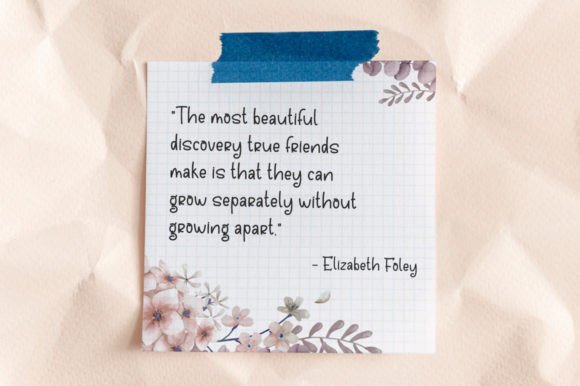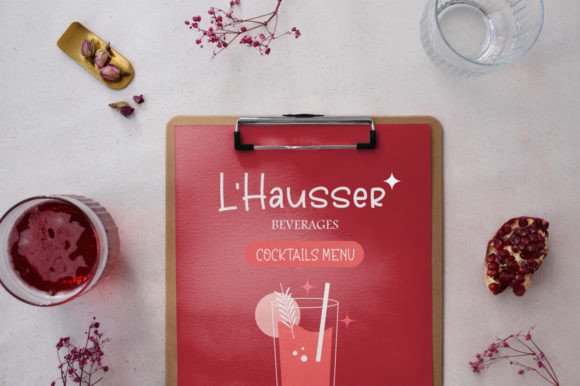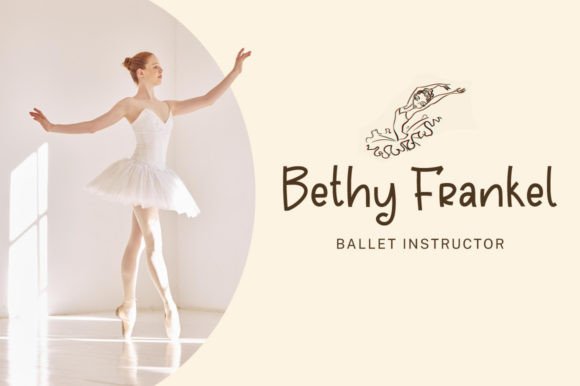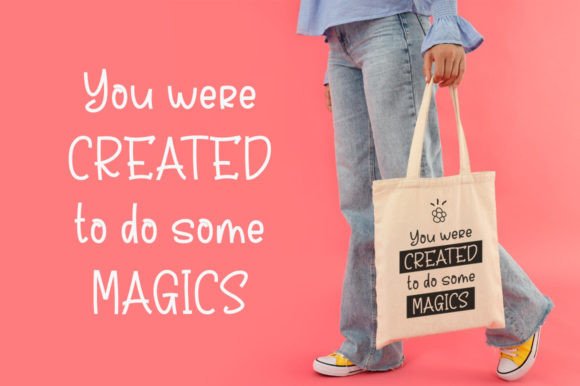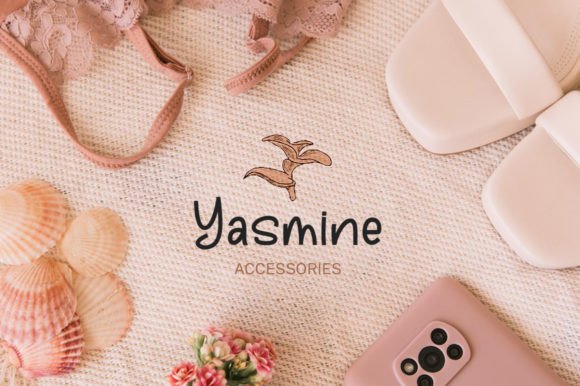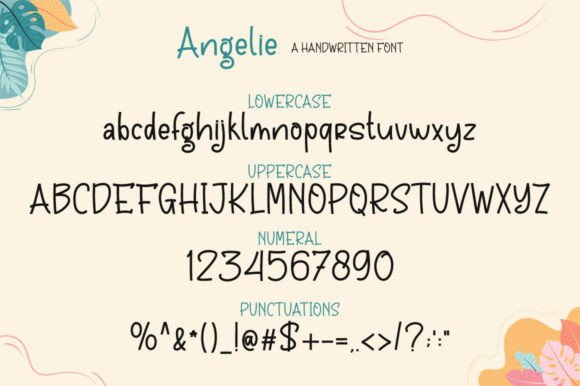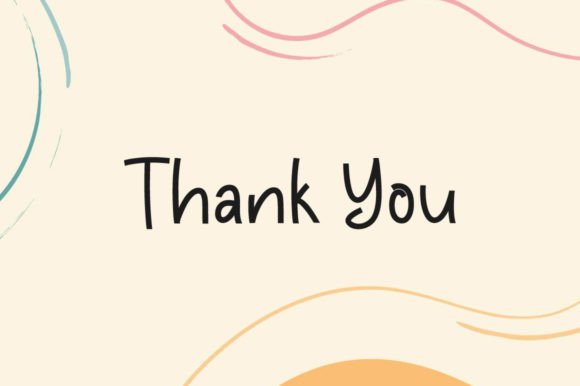
Angelie Font
About Angelie Font
**Add a Fun and Smart Touch to Your Designs with “Angelie” Handwritten Font**
“Angelie” is a versatile handwritten font that strikes a balance between playfulness and sophistication. Here’s how you can use “Angelie” to bring a fun and smart touch to your various design projects:
1. **Invitations:** Create engaging and personalized event invitations with “Angelie.” Its friendly and approachable style is perfect for inviting guests to weddings, parties, and other special occasions.
2. **Thank You Cards:** Express gratitude in a stylish and heartfelt manner by using “Angelie” on thank you cards. Its handwritten charm adds a warm and personal touch to your messages of appreciation.
3. **Quotes:** Showcase inspirational and motivational quotes with “Angelie.” Its smart yet playful appearance enhances the impact of your quotes, making them more relatable and memorable.
4. **Greeting Cards:** Design custom greeting cards for birthdays, holidays, and special moments with “Angelie.” Your heartfelt messages will be beautifully complemented by the font’s friendly and inviting look.
5. **Logos:** Craft unique and eye-catching logos with “Angelie.” Whether it’s for a brand, blog, or small business, this font adds character and personality to your logo designs.
6. **Business Cards:** Make a memorable impression with business cards featuring “Angelie.” Its handwritten style can convey approachability and creativity, which can be especially useful for freelancers and creative professionals.
7. **Social Media Graphics:** Create engaging social media posts, banners, and stories using “Angelie.” Its playful yet smart appearance can help capture attention and encourage user interaction.
8. **Packaging Labels:** Design labels and packaging for handmade or artisanal products with “Angelie.” Its handwritten aesthetic adds authenticity and a personal touch to your branding.
9. **Bookmarks:** Craft charming bookmarks for bookstores, libraries, or literary events. “Angelie” enhances the reading experience by adding a touch of whimsy to these small treasures.
10. **Typography Pairing:** Pair “Angelie” with complementary fonts to create dynamic typography in your designs. Mix it with sans-serif or serif fonts for contrast and emphasis.
11. **Posters:** Design posters for events, promotions, or announcements using “Angelie.” Its friendly and smart look makes information easily accessible and visually appealing.
12. **Art Prints:** Create art prints featuring illustrations or graphic designs with “Angelie” for a fresh and contemporary look. It’s a great choice for adding titles or captions.
13. **Mugs and Merchandise:** Customize mugs, T-shirts, and other merchandise with “Angelie.” Its smart handwritten style adds a personalized touch to your products.
14. **DIY Crafts:** Use “Angelie” for DIY projects like handmade cards, scrapbooking, and home decor. Its versatility and playful charm make it an ideal choice for creative endeavors.
15. **Children’s Content:** “Angelie” can also work well in children’s books, educational materials, and playful branding aimed at kids, thanks to its friendly and approachable appearance.
“Angelie” is a font that combines fun and smart elements, making it suitable for a wide range of design applications. Whether you’re aiming for a casual or sophisticated look, “Angelie” adds character and charm to your projects, making them more engaging and memorable.